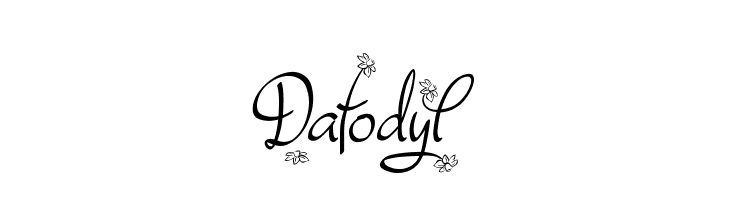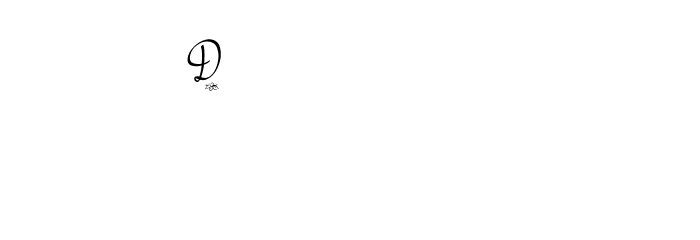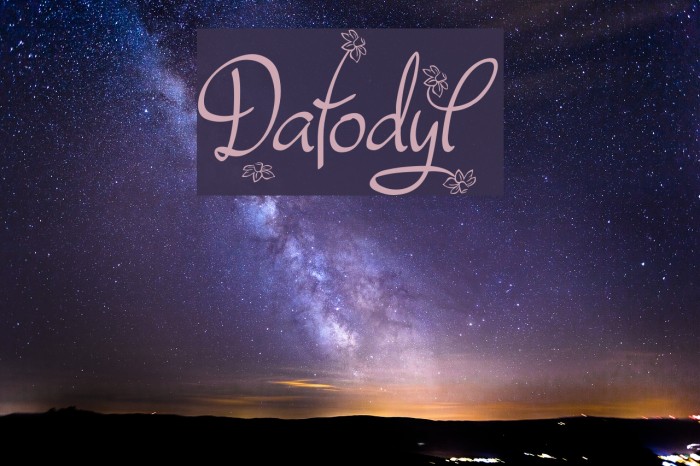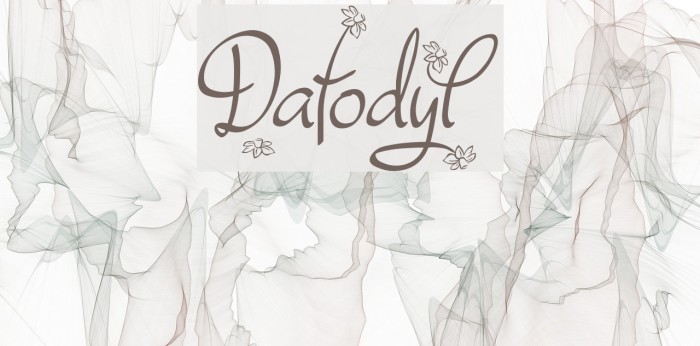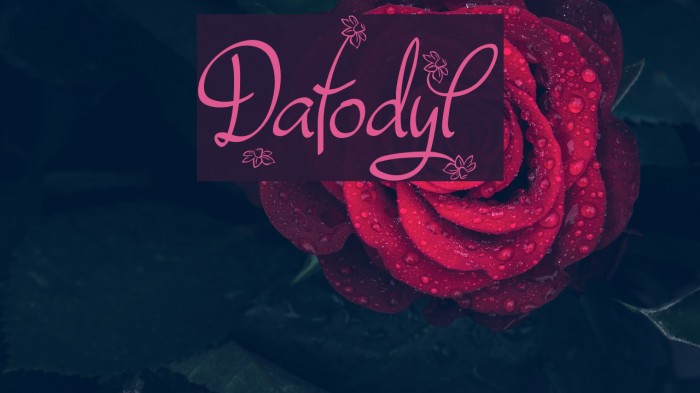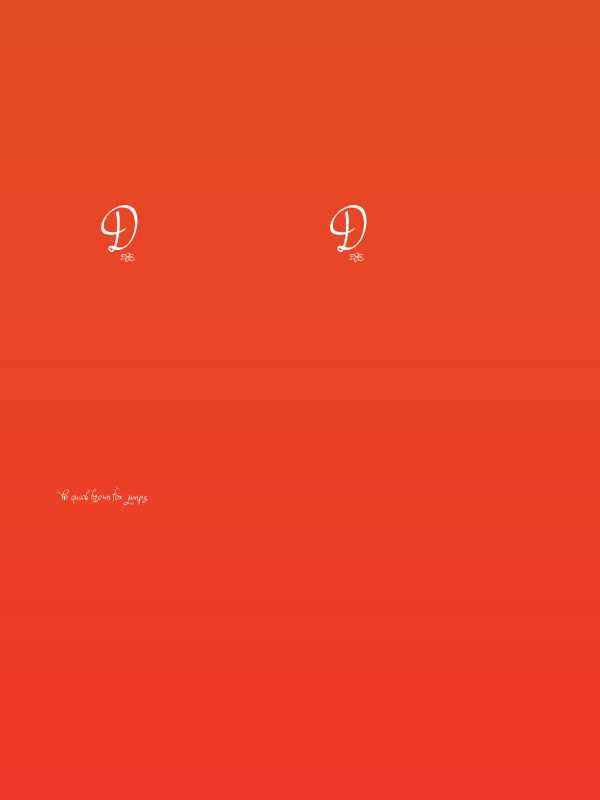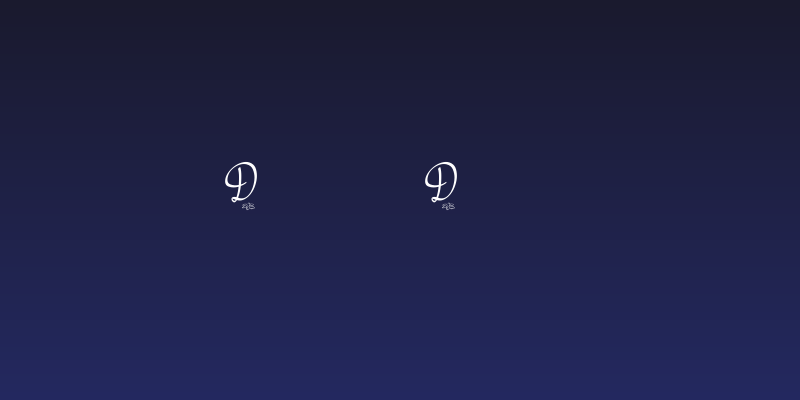
Dafodyl Font
Dafodyl Description
This elegant script font features a whimsical and decorative style, characterized by its flowing, cursive letterforms adorned with delicate floral embellishments. The letters are interconnected with smooth, sweeping strokes, giving it a graceful and artistic appearance. The font's unique design elements, such as the small flowers integrated into the ascenders and descenders, add a touch of charm and sophistication. It maintains a consistent stroke width, providing a harmonious and balanced look. The overall aesthetic is both playful and refined, making it suitable for creative and expressive projects.